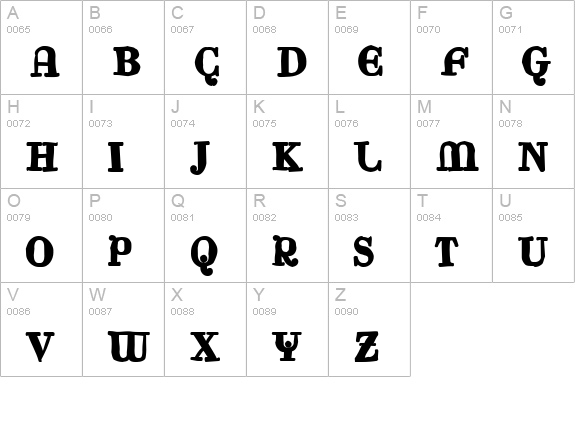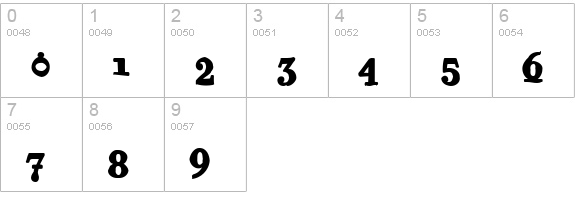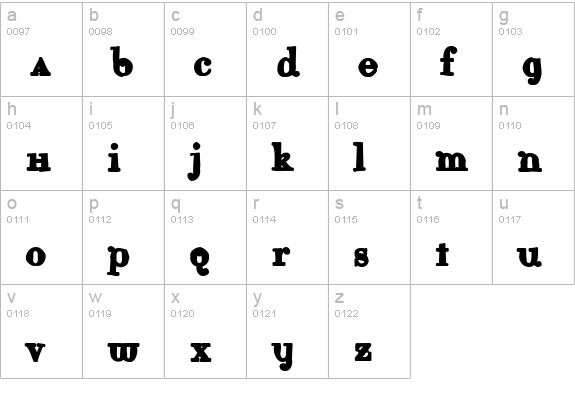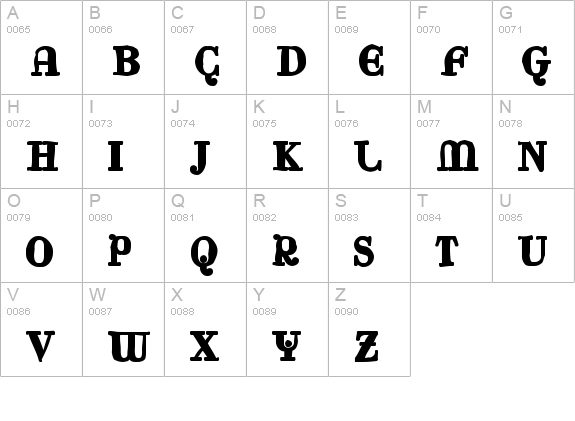
Rina Ink Font Details
Rina Ink font is a beautifully crafted typeface that exudes a sense of artistic flair and creativity. Its unique design features intricate detailing and a hand-drawn aesthetic that adds a touch of elegance to any project. The flowing strokes and irregular edges give Rina Ink font a charming and whimsical appeal, perfect for adding a personal touch to your designs. What makes Rina Ink font even more appealing is that it is available for free download at FontsMarket.com. This means that you can easily access this stunning font and use it in your projects without any cost. Whether you're working on a branding project, a poster design, or any other creative endeavor, Rina Ink font is sure to make a lasting impression. Embrace the beauty of this free font and let your creativity soar with Rina Ink.